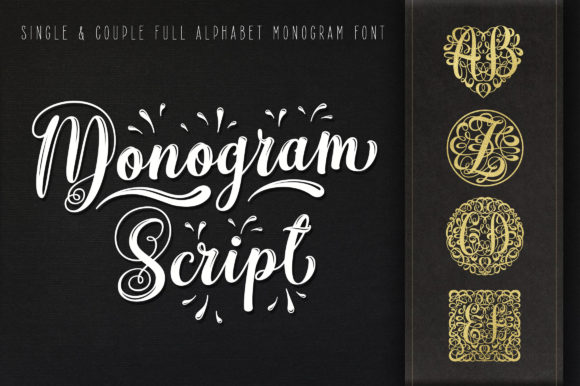
Step into the world of refined elegance with Monogram Script Font. This captivating decorative font, crafted with utmost care by Royaltype, exudes an aura of sophistication and charm, making it the perfect choice for your creative endeavors.
Indulge in a symphony of swirling lines, intricate flourishes, and graceful serifs that dance across the page, leaving a trail of beauty in their wake. Monogram Script's exquisite details evoke a sense of timeless elegance, adding a touch of refinement to any project.
With Monogram Script, your designs will radiate an air of exclusivity. Its inherent charm lends itself effortlessly to creating personalized monograms, logos, invitations, greeting cards, and so much more. Imagine your words adorned with this captivating font, commanding attention and leaving a lasting impression.
Unleash your creativity with Monogram Script. Its versatility extends from traditional to contemporary designs, whether you seek a vintage aesthetic or a dash of modern flair. Its open type features allow for endless customization options, empowering you to tailor the font to your unique vision.
Experience the joy of seamless usability with Monogram Script. Its user-friendly interface and wide range of supported languages ensure a smooth and effortless creative process. Let your imagination soar as you effortlessly transform your ideas into stunning visual masterpieces.
Elevate your designs to new heights with Monogram Script. Embrace the beauty of intricate details, the charm of timeless elegance, and the freedom of boundless creativity. Allow this remarkable font to orchestrate a visual symphony that captures hearts and ignites imaginations.